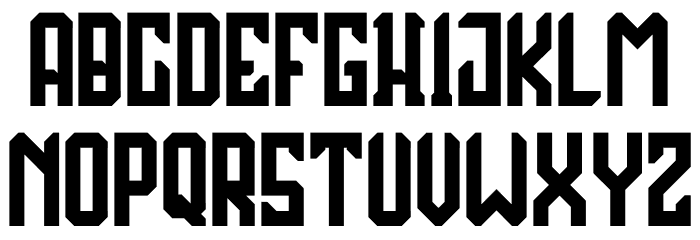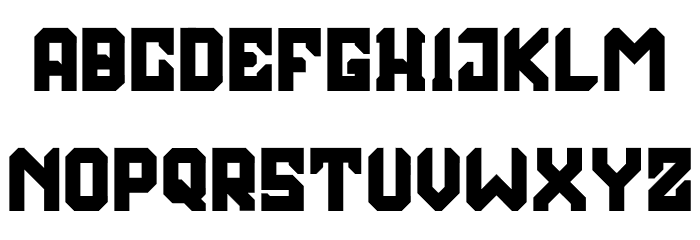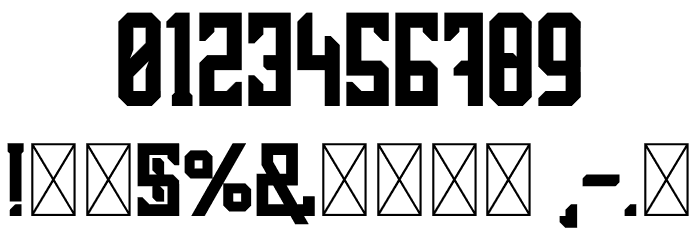
Theroar Ligature Font
This font features a bold and geometric design with sharp, angular lines and a strong presence. The uppercase letters are distinct with a blocky appearance, while the lowercase letters maintain a consistent style that complements the uppercase. The numbers follow the same geometric pattern, ensuring uniformity across all characters. Special characters are designed to match the overall aesthetic, making this font suitable for creating a cohesive visual identity. The font's structure is reminiscent of industrial and futuristic themes, making it ideal for projects that require a modern and edgy look.
A bold, geometric font with sharp angles and a modern, industrial feel.
- Proposed Projects: Ideal for branding, poster design, video game graphics, and any project requiring a futuristic or industrial aesthetic.
- Overall Style: Modern, Industrial